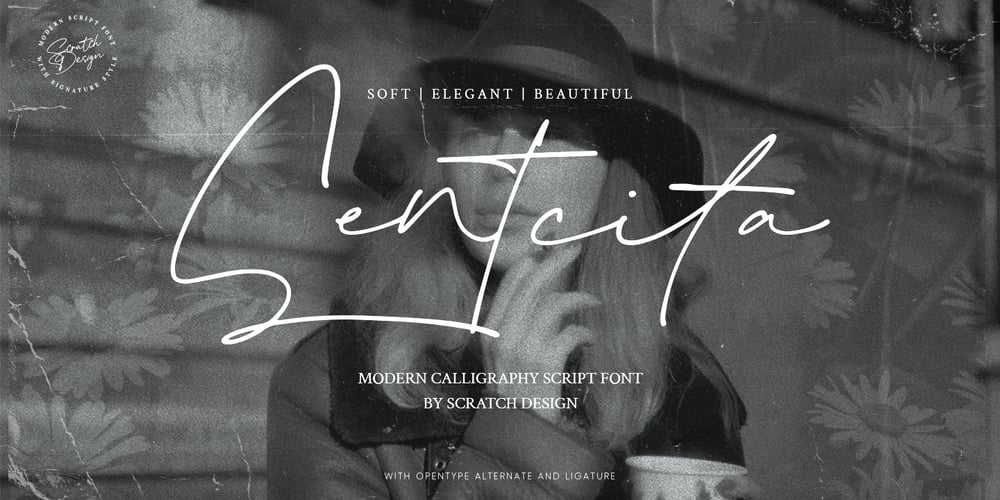
Sentcita Font Family was designed by Gitayogi Irhandi and published by Scratch Design. Sentcita contains 1 styles and family package options. Introducing Sentcita! It’s a modern script font with a signature-style look. This font’s highly recommended for you who want to make some designs with a natural signature style. Sentcita will work for invitation design, wedding design, posters, packaging, book cover title, quote, social media post, etc. Open your Opentype features while using the script font to use the ligatures and swashes, your text will look like a natural signature or handwriting as you type.Features: Stylistic Alternates & Ligatures Numerals & Punctuation Swashes Accented characters Multiple Languages SupportedHow to access alternates characters Open the glyphs panel: In Adobe Photoshop go to Window – glyphs In Adobe Illustrator go to Type – glyphs